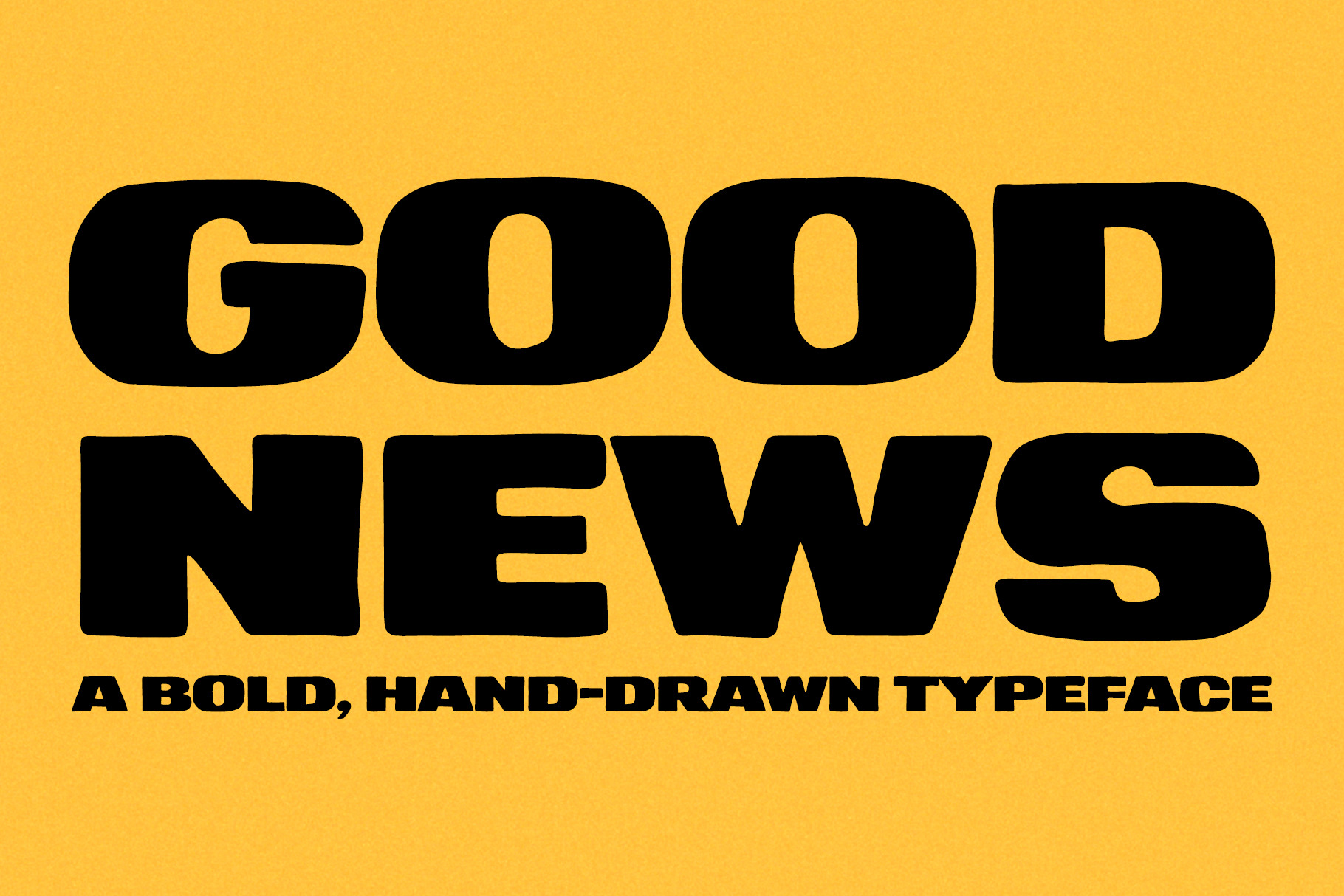
Good News Display Font
Good News is a hand-drawn, extended sans serif typeface. Developed for headings, logos, and display, or whatever you feel like using it for. Hand-drawn for that extra character.
**This is a hand drawn font, there are some imperfections, but that's the point :)